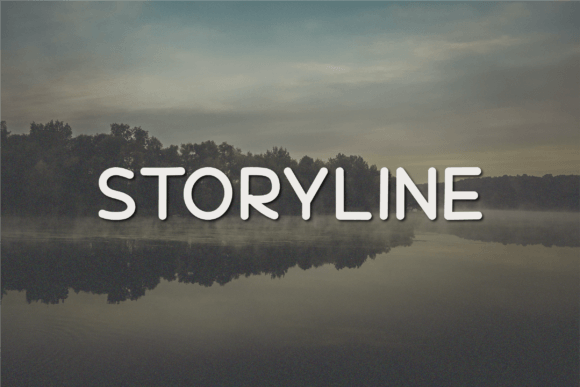
With Storyline Font, you're not just downloading a font; you're acquiring a timeless treasure that will revolutionize your visual communication. This sans serif masterpiece, hand-crafted by the renowned Becraft, captures the essence of modern sophistication with its quirky and playful all-caps design. Whether you're a seasoned designer or just starting, Storyline Font is your gateway to unlimited creativity.
Immerse yourself in the world of design possibilities with Storyline Font. Its versatility knows no bounds, allowing you to effortlessly transform your projects into captivating masterpieces. From captivating digital designs to heartfelt greeting cards, Storyline Font effortlessly elevates your creations with its distinctive charm. Say goodbye to dull and mundane typography and embrace the vibrant personality that Storyline Font brings to your work.
Crafting presentations that leave a lasting impression? Look no further than Storyline Font. Its bold and playful characters command attention, ensuring your message shines brighter than ever before. Its clean lines and legible structure guarantee that your content is not just seen but absorbed, leaving an indelible mark on your audience. With Storyline Font, your presentations will be the talk of the town, inspiring and engaging your audience like never before.
Unleash your inner artist with Storyline Font. Whether you're a seasoned crafter or just starting, this font is your perfect companion. Its playful spirit adds a touch of whimsy to your creations, transforming ordinary projects into extraordinary expressions of your imagination. From personalized mugs to eye-catching posters, Storyline Font breathes life into your handmade masterpieces, making each one a cherished keepsake.
With Storyline Font, your creative horizons expand infinitely. Its versatility transcends genres and styles, making it the ultimate choice for designers of all kinds. Whether you're working on branding, web design, or social media graphics, Storyline Font seamlessly adapts to your vision, adding a touch of modern flair and uniqueness to every project. Prepare to witness your designs come alive with a personality that resonates with your audience, leaving a lasting impact that sets you apart from the rest.